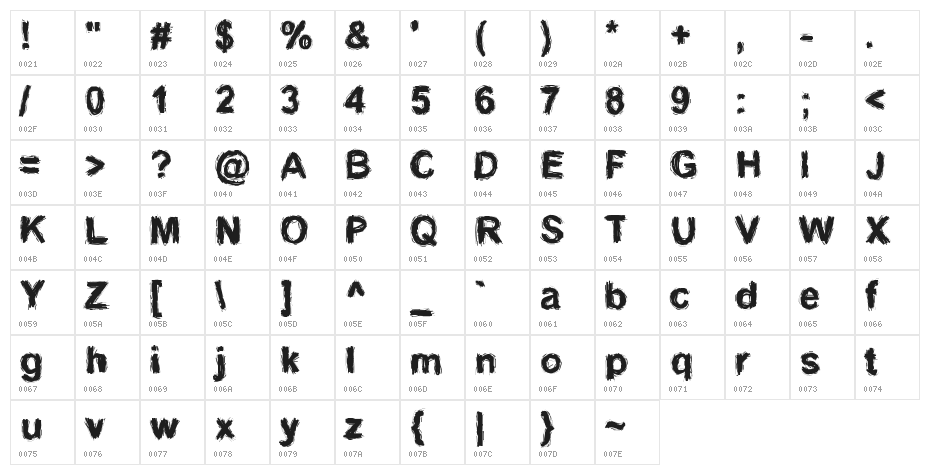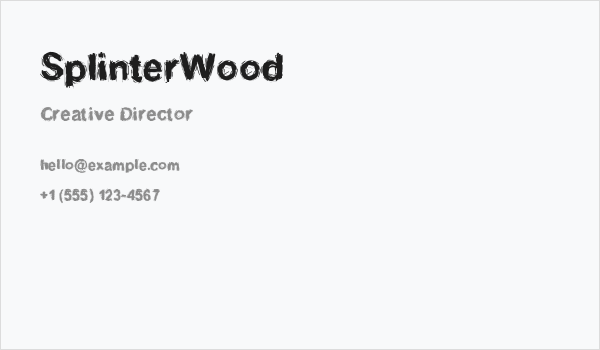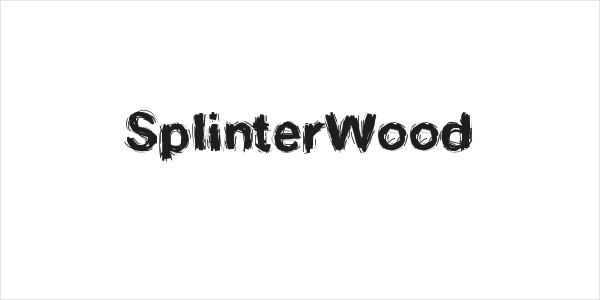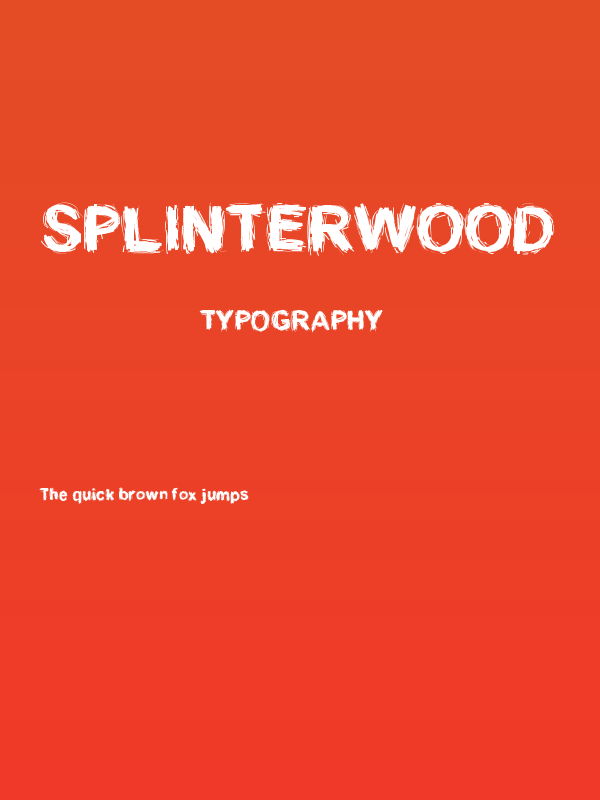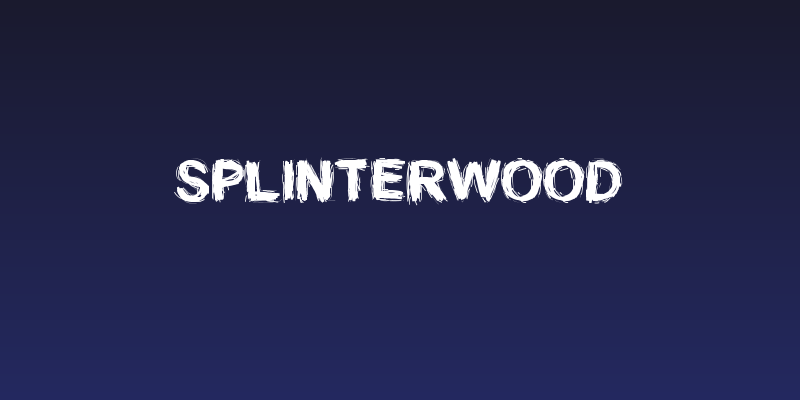
SplinterWood Font
| Stile generale | Rustic, Organic, Energetic |
| Progetti proposti | Ideal for projects requiring a natural, rustic aesthetic such as outdoor event posters, eco-friendly product packaging, or adventure-themed branding. |